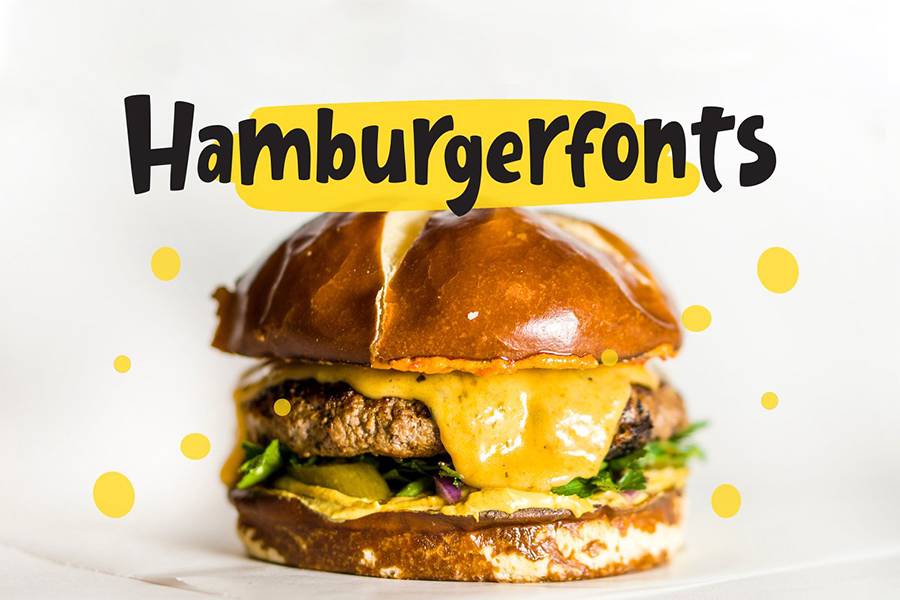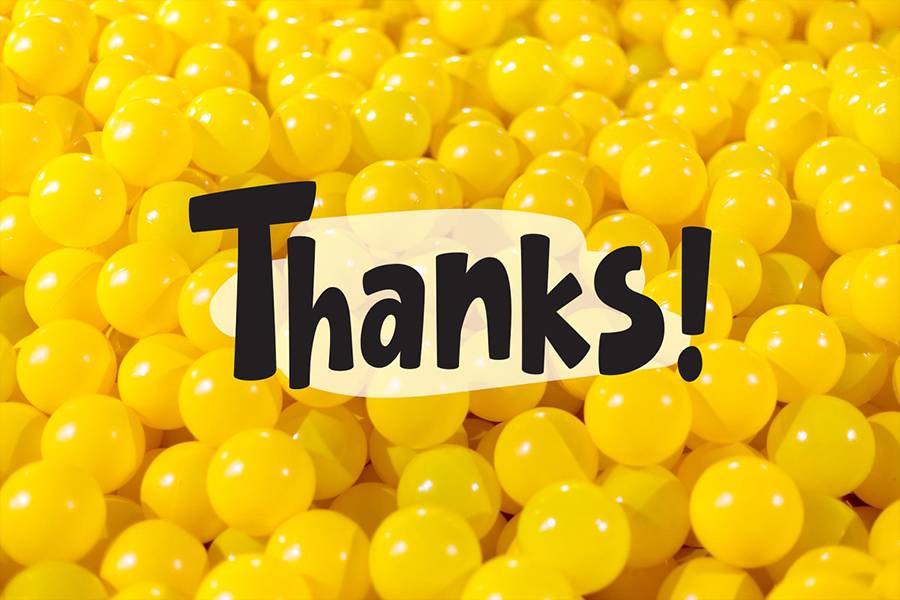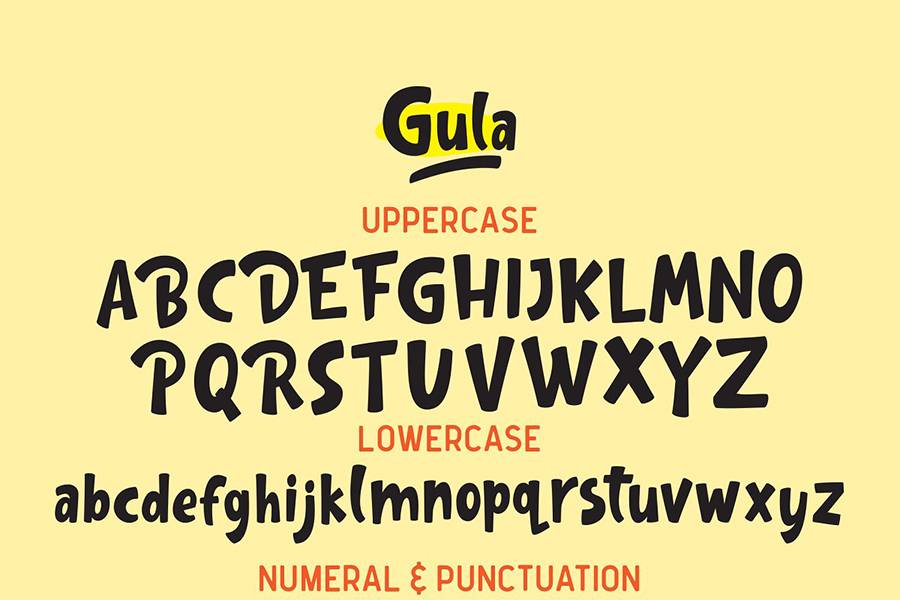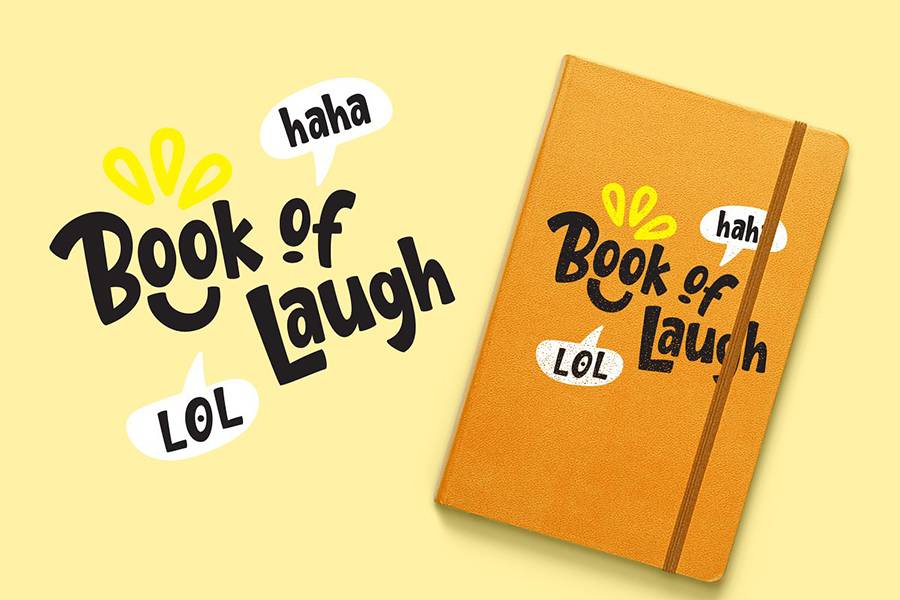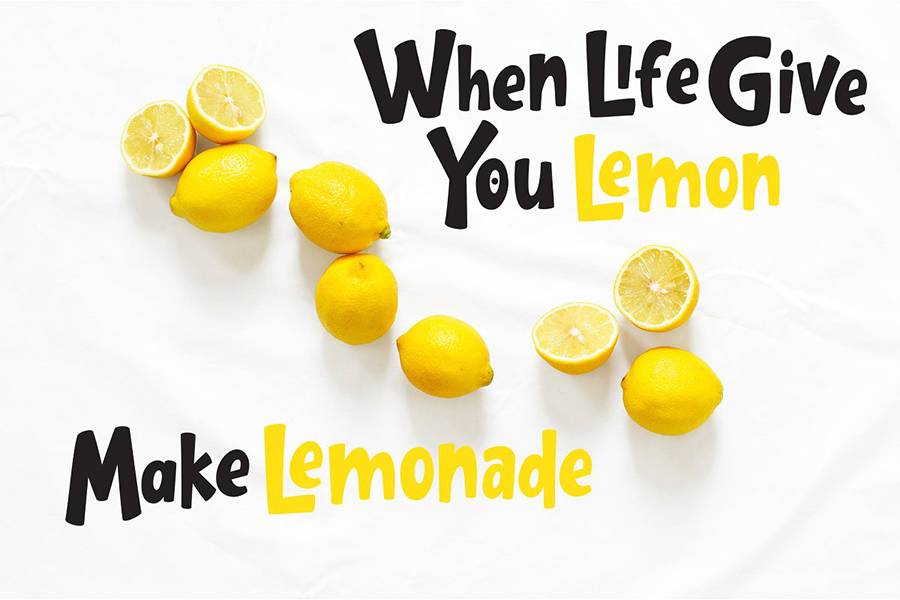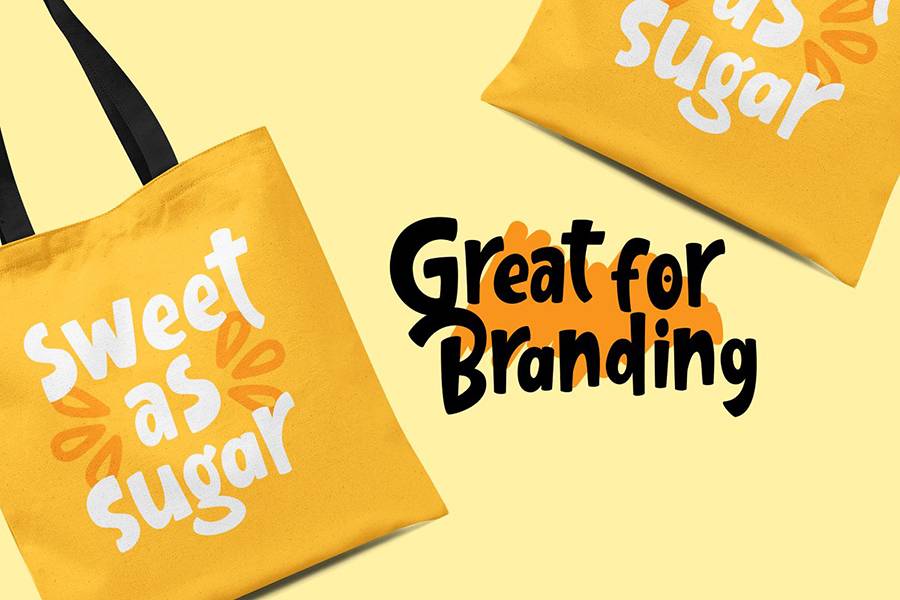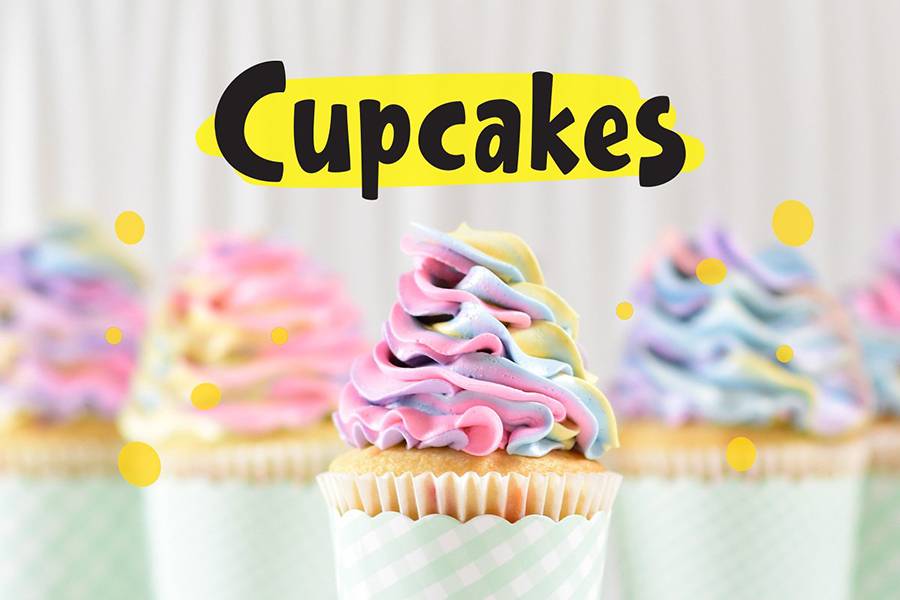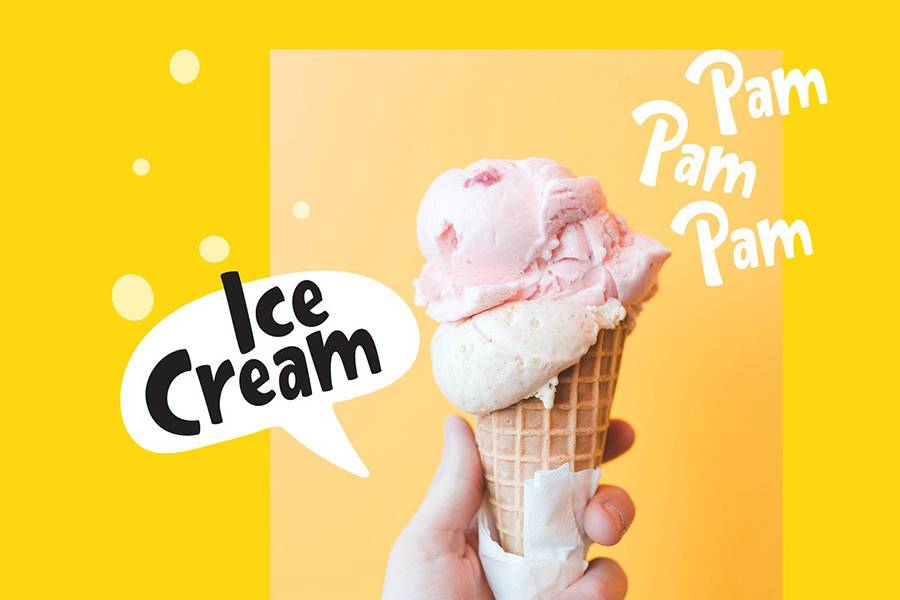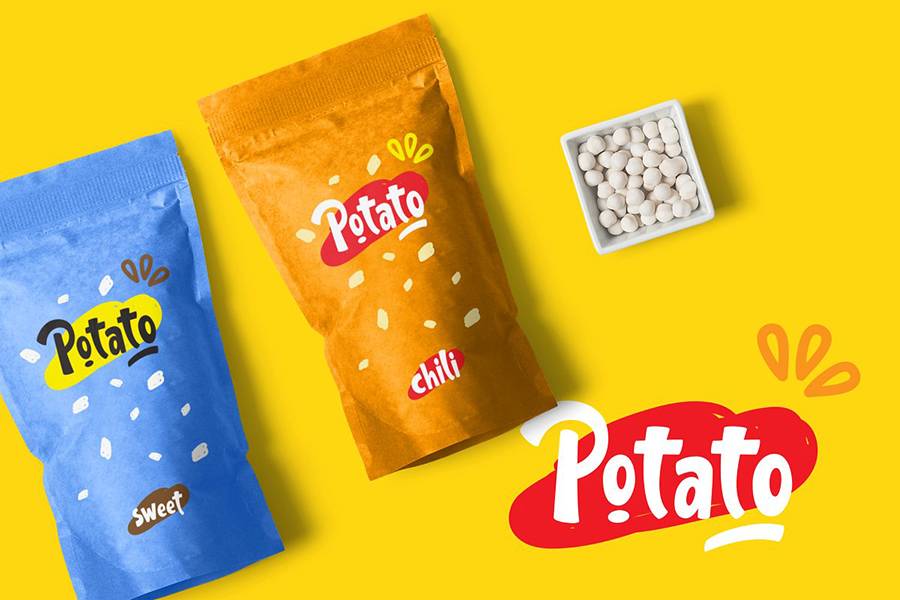
Gula Playful Font Demo
Gula Playful Font Demo is the latest font work by Inspiratype. This display font appear fun, bold and friendly that is perfect for display purposes and branding. Hence, the font will look great on book cover, poster, label, branding and other prints as well! The font comes with uppercase, lowercase, numerals, punctuation.